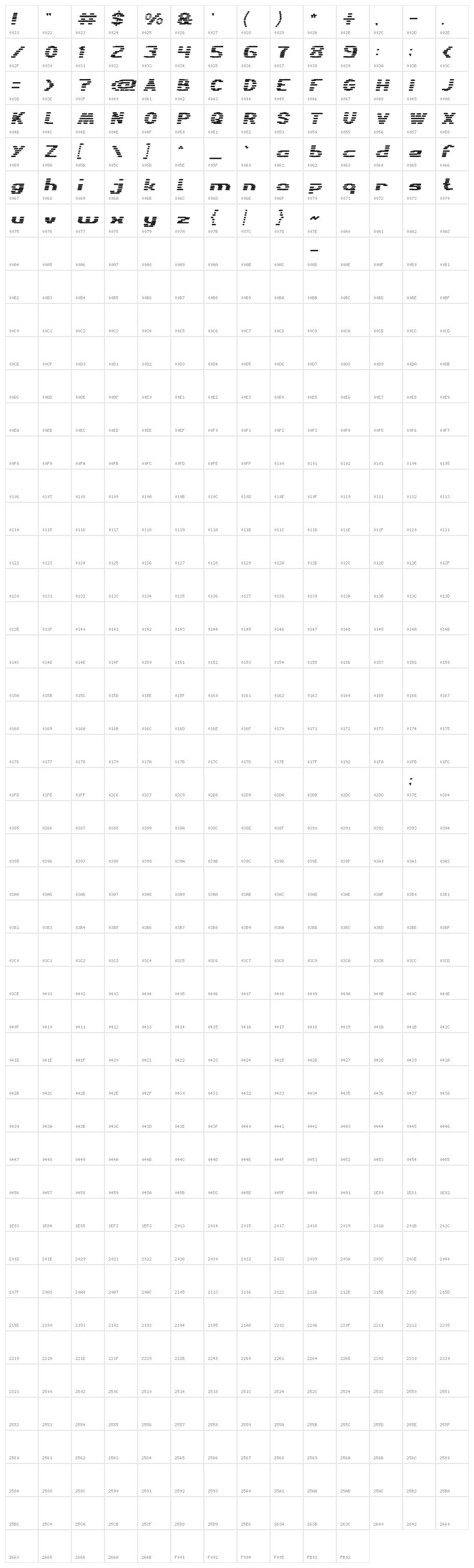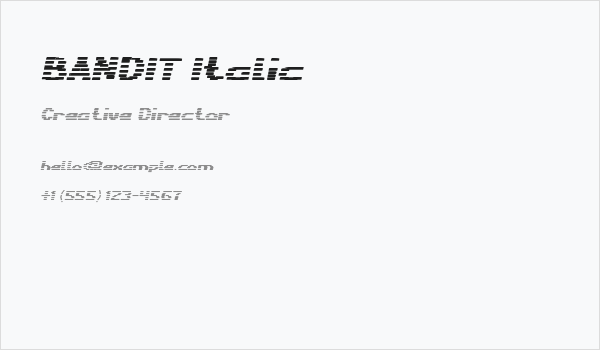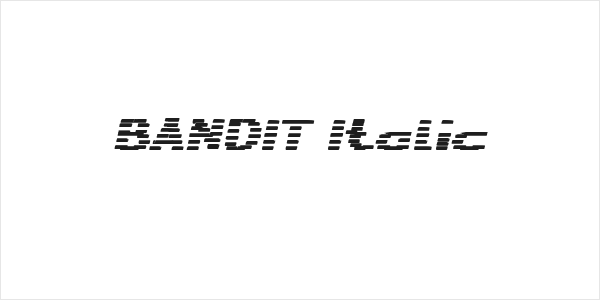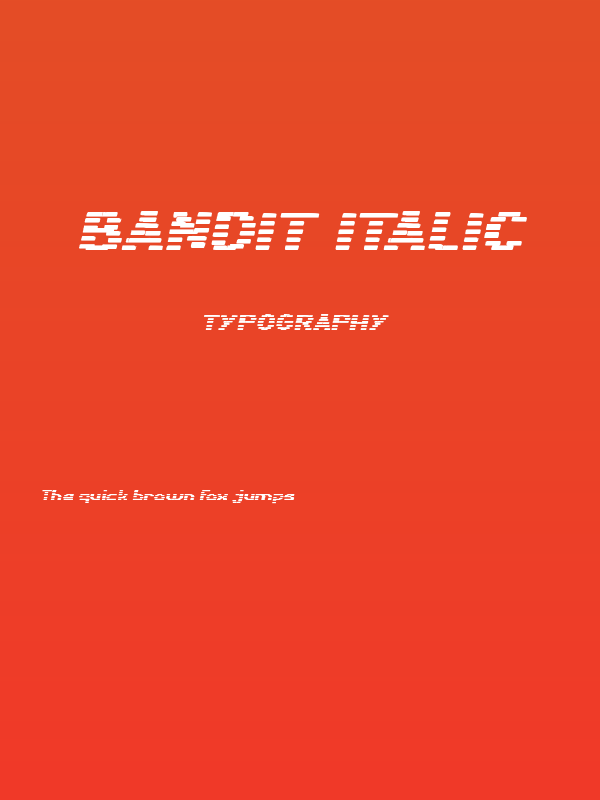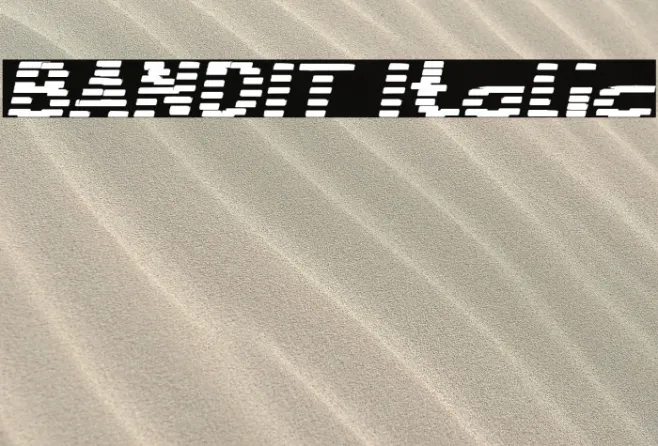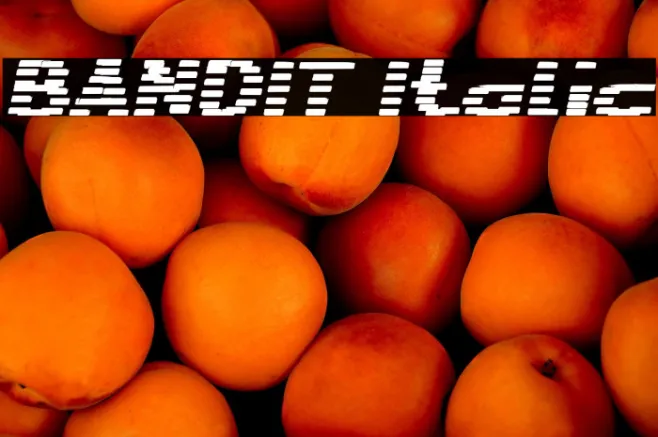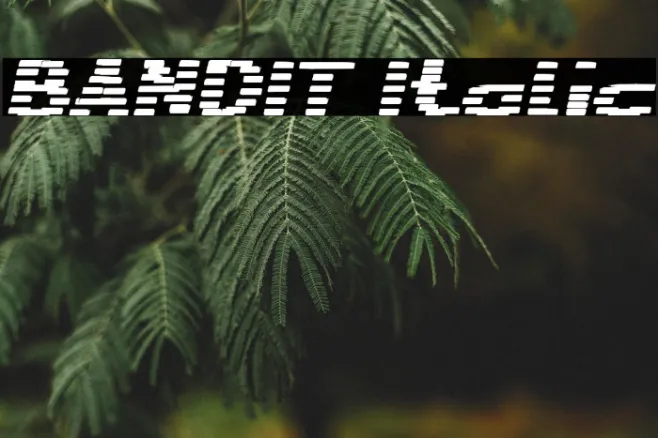
BANDIT Italic Font
This font features a unique, italicized design with a distinct, segmented appearance. Each character is composed of horizontal stripes, giving it a dynamic and modern look. The uppercase and lowercase letters maintain a consistent style, with the stripes creating a sense of movement and energy. The numbers and special characters follow the same pattern, ensuring uniformity across all glyphs. This font's bold and innovative design makes it stand out, perfect for projects that require a contemporary and eye-catching typeface.
BANDIT-ITALIC UPPERCASE
BANDIT-ITALIC LOWERCASE
BANDIT-ITALIC OTHER CHARS
| Proposed Projects | Ideal for branding, posters, digital art, and any project needing a striking, modern typeface. |